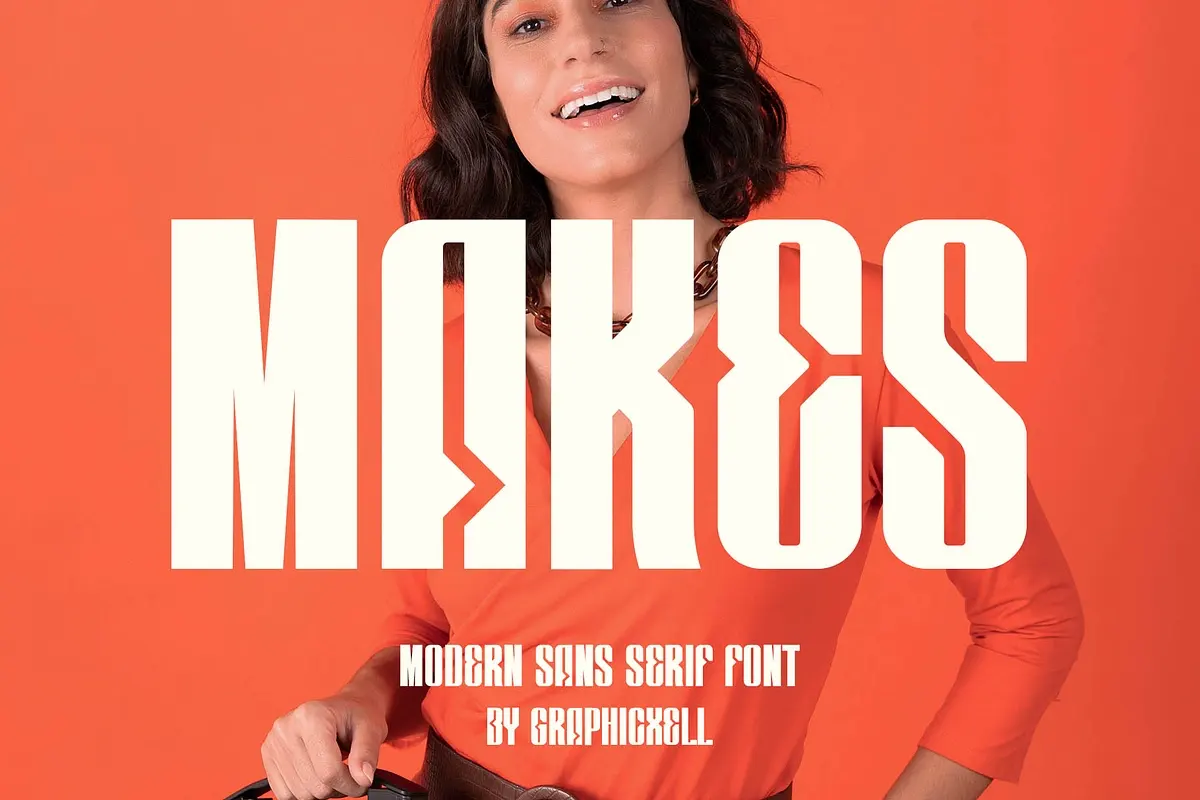
Makes Sans Serif Font Free Download
Makes Sans Serif Font Free Download is a clean, modern, and highly versatile sans-serif typeface. Featuring simple, geometric shapes and sleek lines, this font is perfect for a wide range of design projects, including branding, logos, editorial layouts, websites, and packaging. Its minimalistic and contemporary style ensures readability and flexibility, making it suitable for both print and digital applications.
Using the Makes Sans Serif Font Free Download adds a polished, professional touch to your typography. Whether you're designing a modern logo, crafting a stylish website, or working on marketing materials, this font provides a clean, functional aesthetic that complements a variety of design styles.